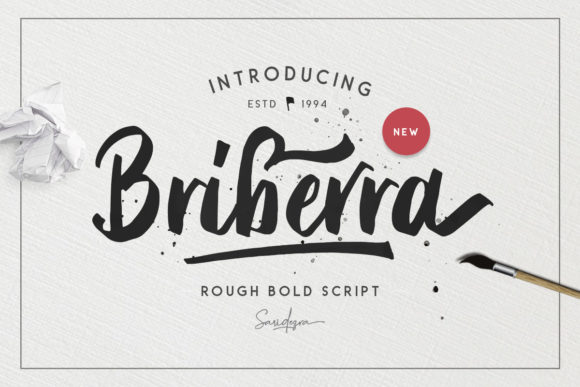
The Briberra Script Font: A Bold and Beautiful Addition to Your Design Toolkit
I’ll never forget the time I was working on a project for a client who wanted a bold, eye-catching font to make their brand stand out. I scoured the internet for hours, trying out font after font, but nothing seemed quite right. That was until I stumbled upon the Briberra script font. With its rough, bold style, it was love at first sight! In this article, I’ll share my experience with the Briberra font, its features, and how to get the most out of it in your designs.
An Honest Review of Briberra Script Font
So, what do I love about the Briberra font? Here are a few things that make it a standout:
- ✨ Unique style: The Briberra font has a one-of-a-kind, rough-and-tumble style that’s perfect for making a statement.
- ✅ Highly versatile: This font can be used for a wide range of design projects, from quotes and t-shirt designs to headers and posters.
- 💥 Attention-grabbing: The bold, striking style of Briberra is guaranteed to grab attention and make your design stand out.
Of course, no font is perfect, and Briberra is no exception. Here are a few quirks to be aware of:
- 🤔 Limited use in body text: Due to its bold style, Briberra may not be the best choice for body text or long blocks of text.
- ⚠️ Some letters may appear irregular: The rough, hand-drawn style of Briberra means that some letters may appear irregular or imperfect.
The Story Behind Briberra Script Font
The Briberra font was designed by a team of creatives who wanted to create a bold, eye-catching font that would stand out in any design. Inspired by the imperfections of hand-drawn lettering, Briberra features a rough, hand-drawn style that’s perfect for making a statement.
| Font Name | Briberra Script Font |
| Author | saridezra |
| What is the Briberra font best used for? | The Briberra font is best used for bold, eye-catching designs such as quotes, t-shirt designs, headers, and posters. |
| Is Briberra a script font? | Yes, Briberra is a script font with a rough, hand-drawn style. |